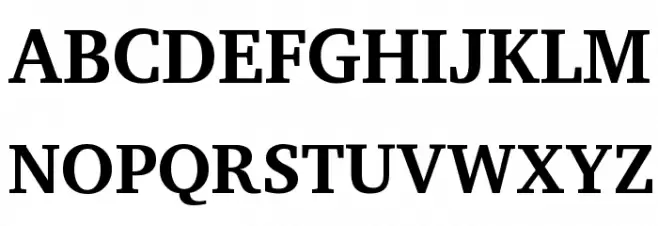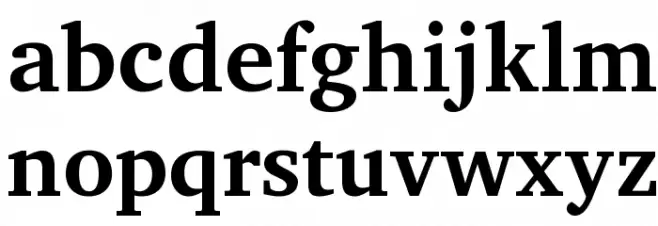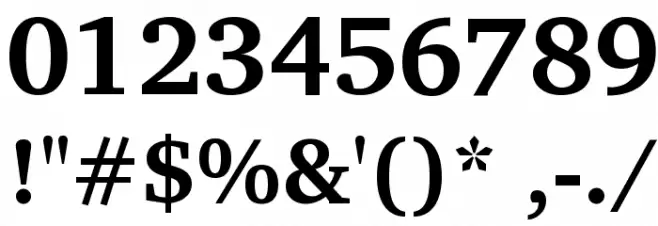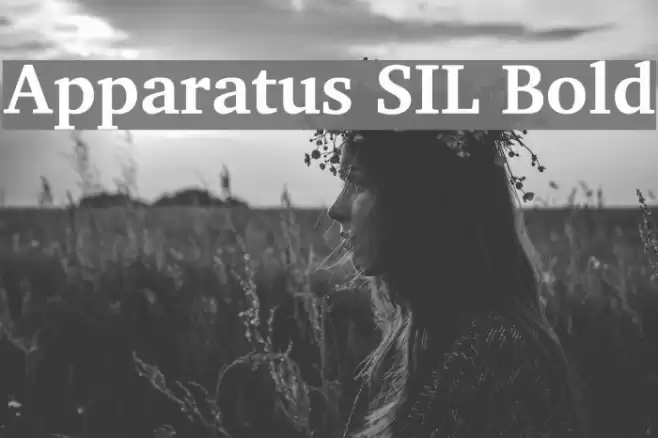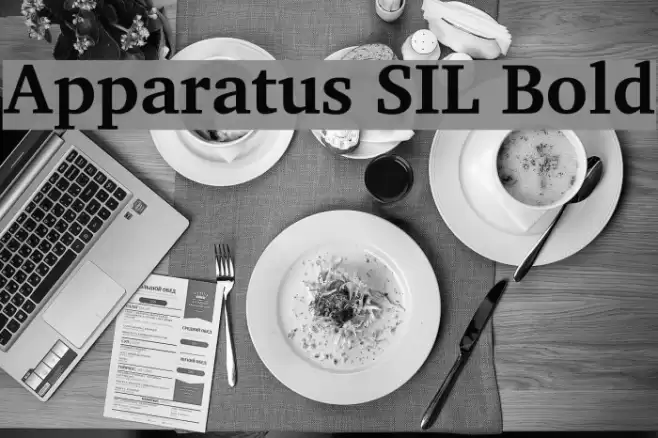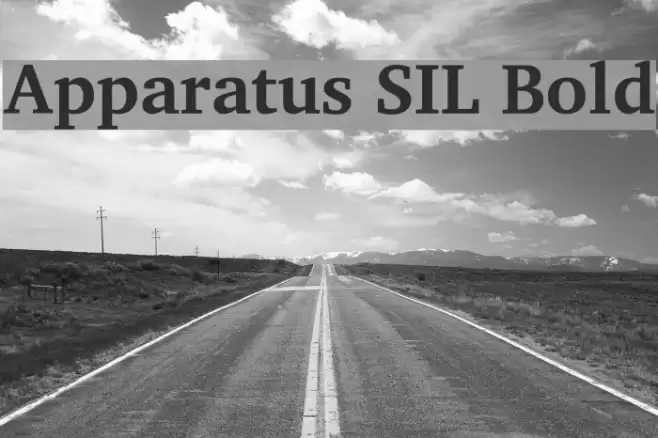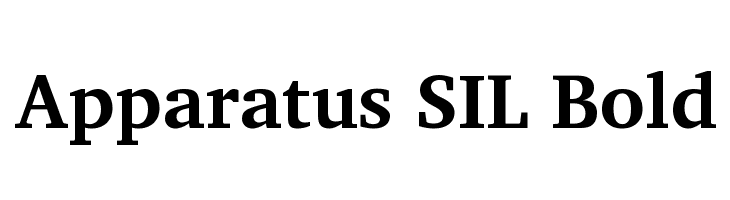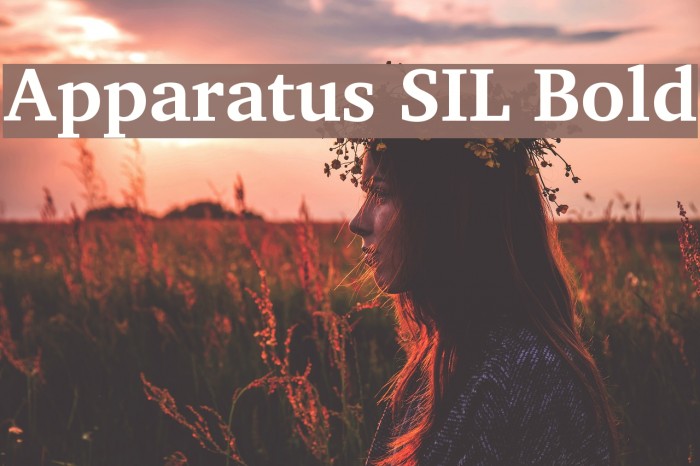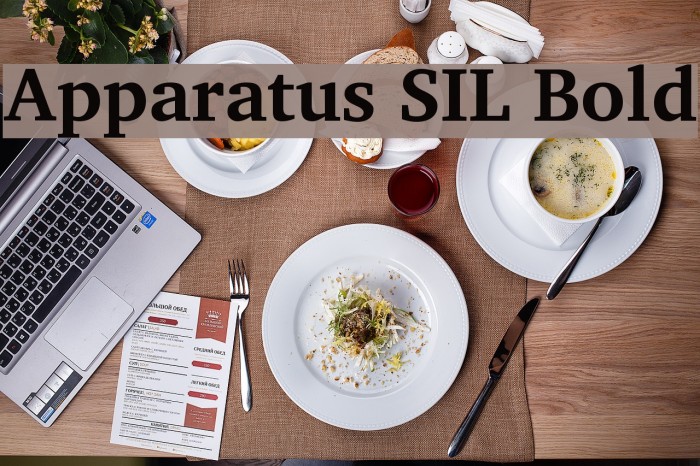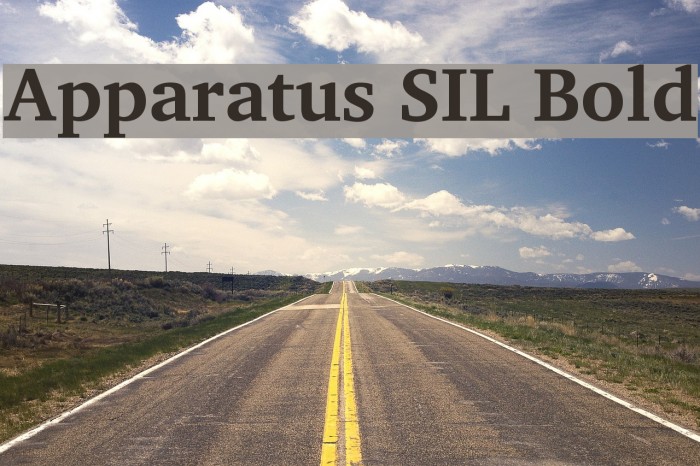
Apparatus SIL Bold
This font features a bold and authoritative serif style, characterized by its strong and pronounced strokes. The serifs are well-defined, adding a classic touch to the overall appearance. The uppercase letters are tall and commanding, while the lowercase letters maintain a consistent and harmonious flow. The numerals are clear and easily distinguishable, making them suitable for both display and text purposes. Special characters are crafted with precision, ensuring readability and aesthetic appeal. The font's bold weight and high contrast make it ideal for impactful headlines and titles.
A bold serif font with strong strokes and high contrast, perfect for headlines.
- Proposed Projects: Ideal for editorial design, book covers, branding projects, and advertising materials where a strong, classic presence is needed.
- Category: Serif
- Contrast: High
- Overall Style: Classic